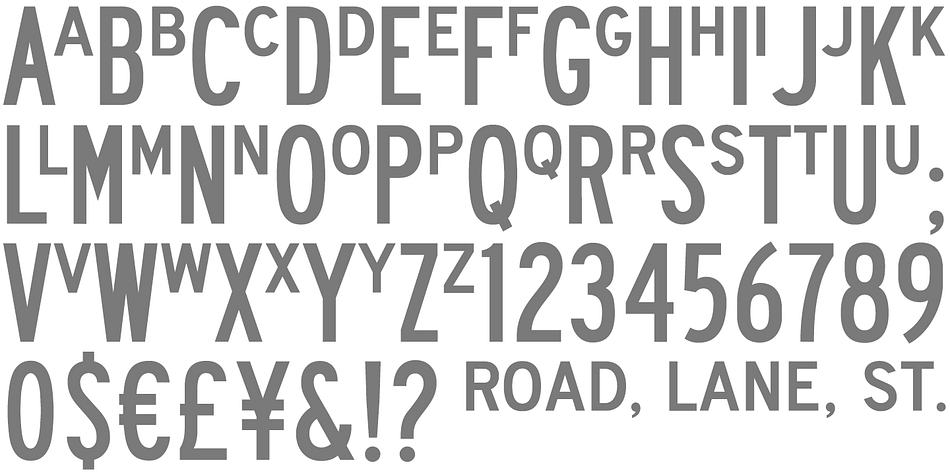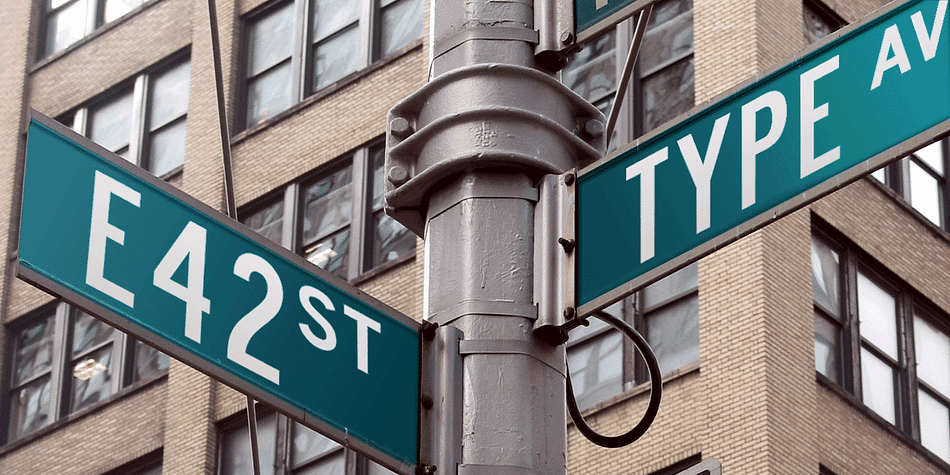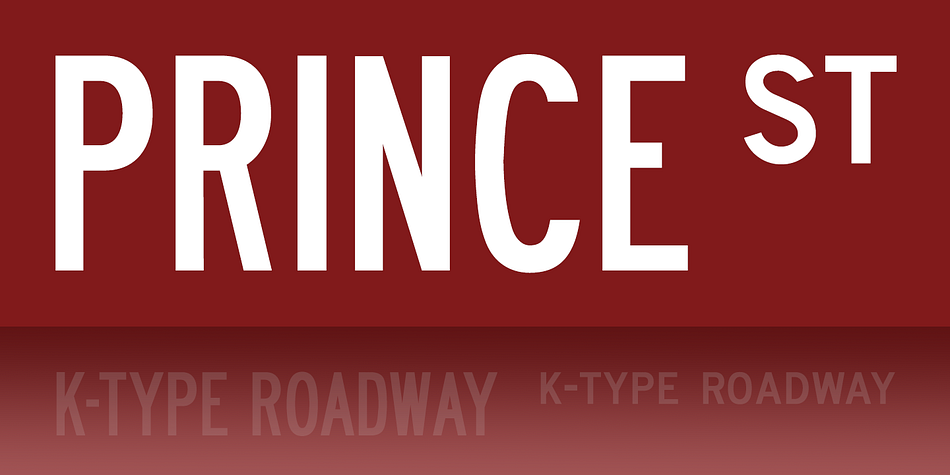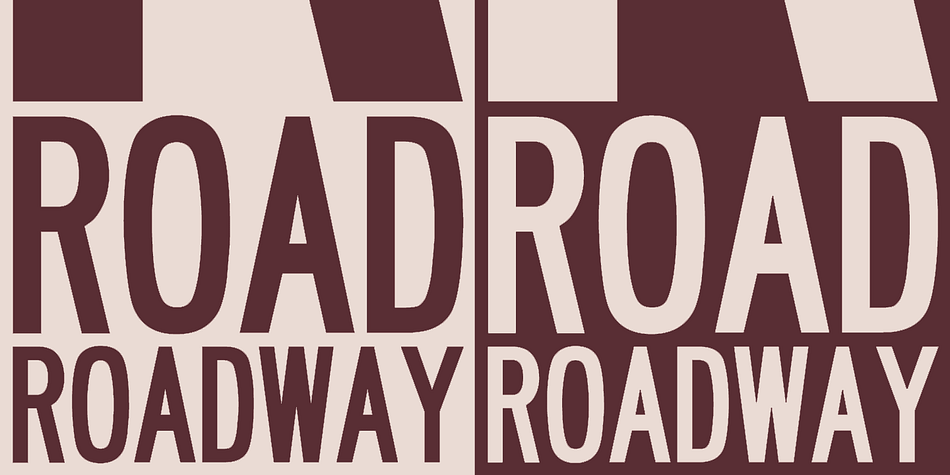
Roadway is a display sans font published by K-Type.
Roadway is based on U.S. highway lettering observed on New York street signs. Two weights of capitals would often be used on the same sign, condensed for the main name, and a half-size regular superscript for ‘road’ or ’street’.
Roadway is a Small Caps font. The upper case consists of condensed capitals, the lower case consists of regular width small caps, sized at 50% and superscript.
A small superscript comma and period, aligned with the lowercase, are at the less and greater keystrokes,
< and>, respectively.
A small hyphen lining with the superscript lowercase is at the en dash position (Mac: option hyphen, Windows: alt-0150).